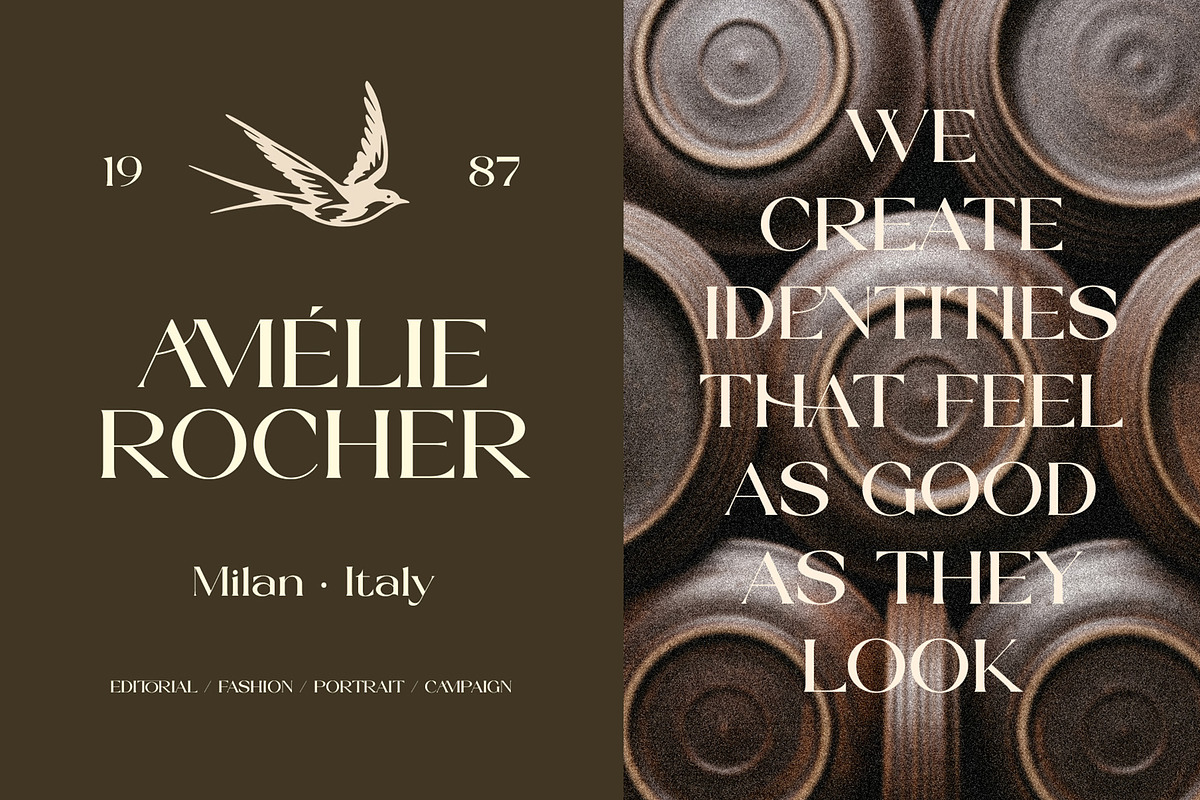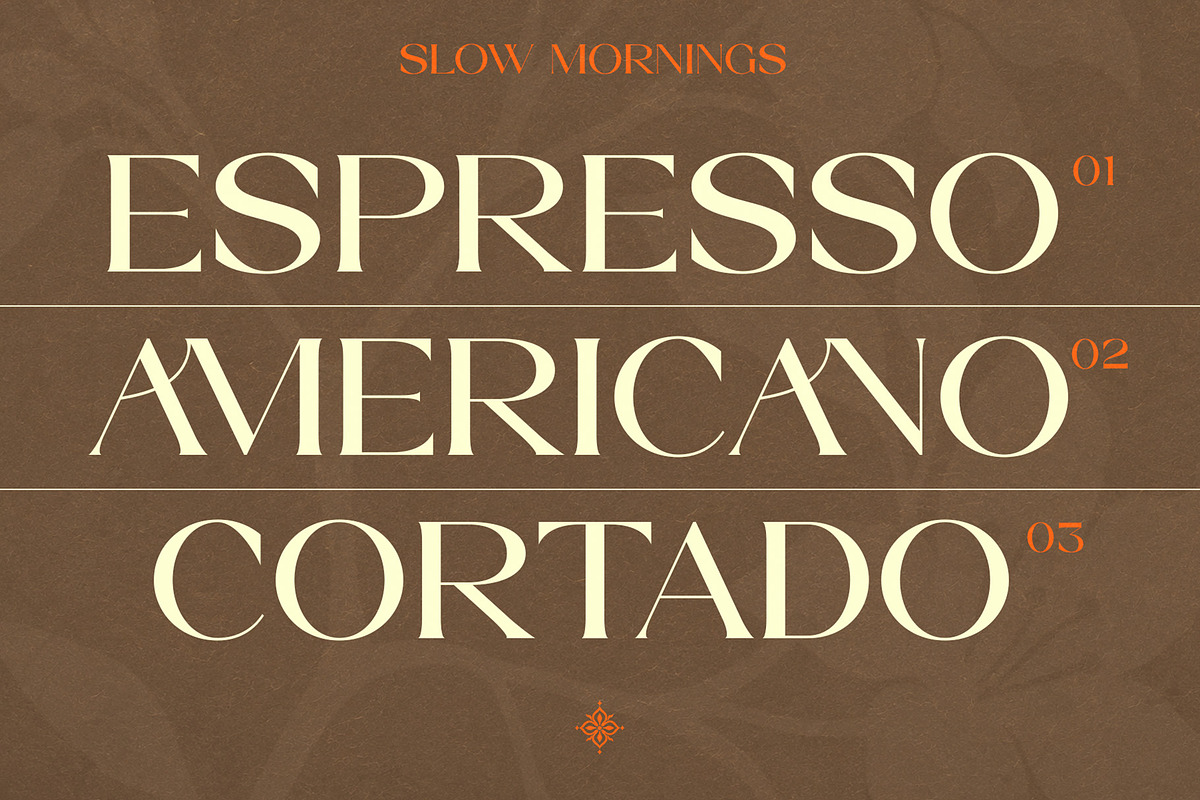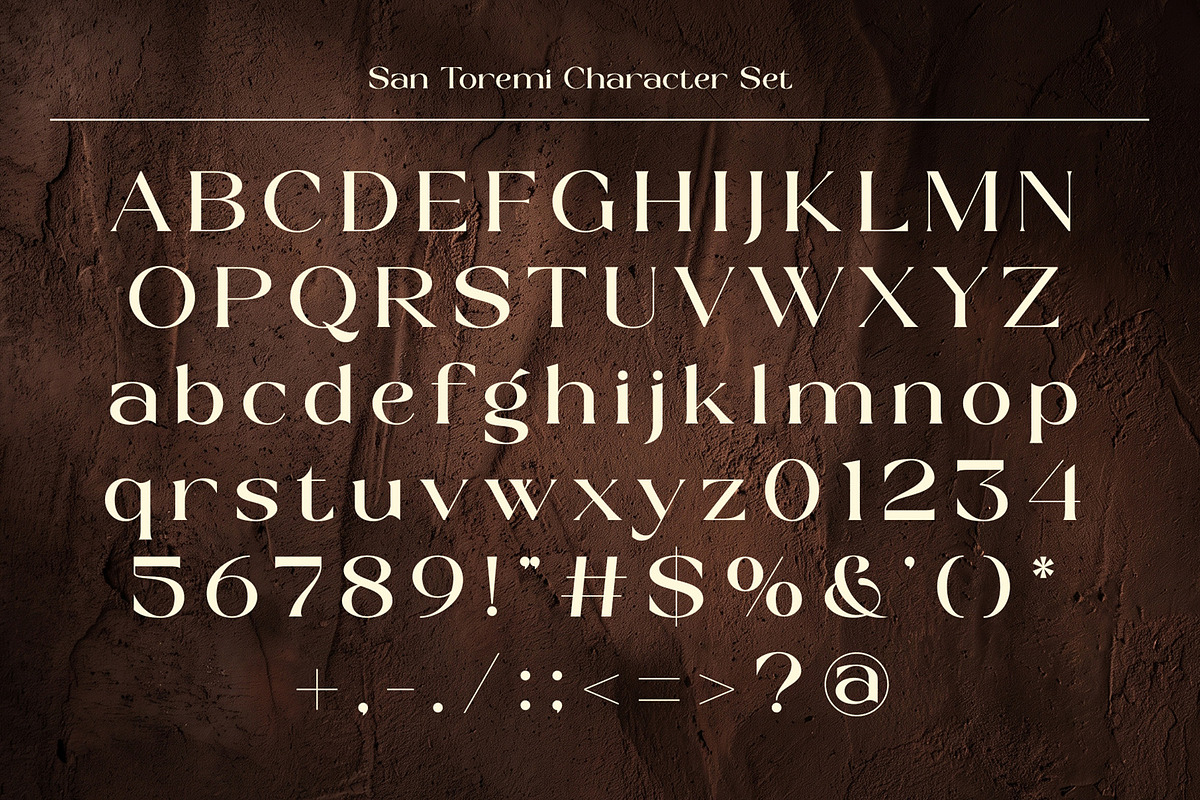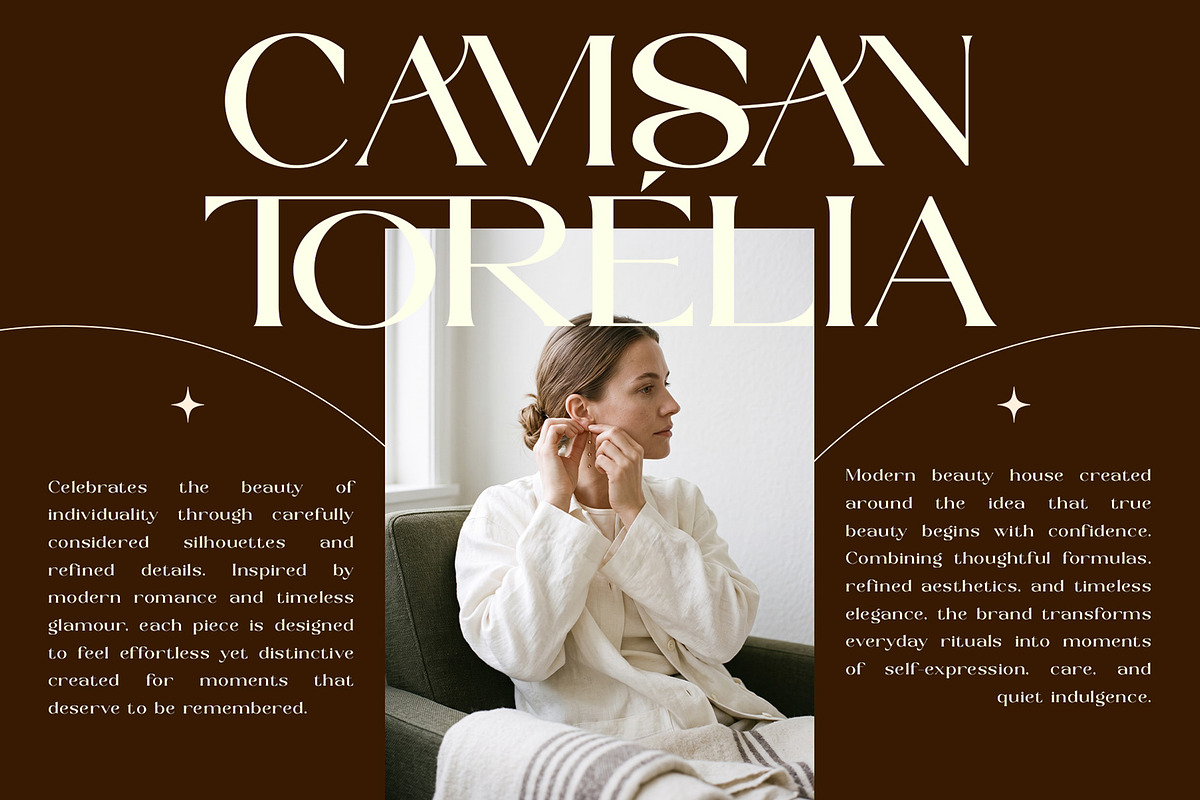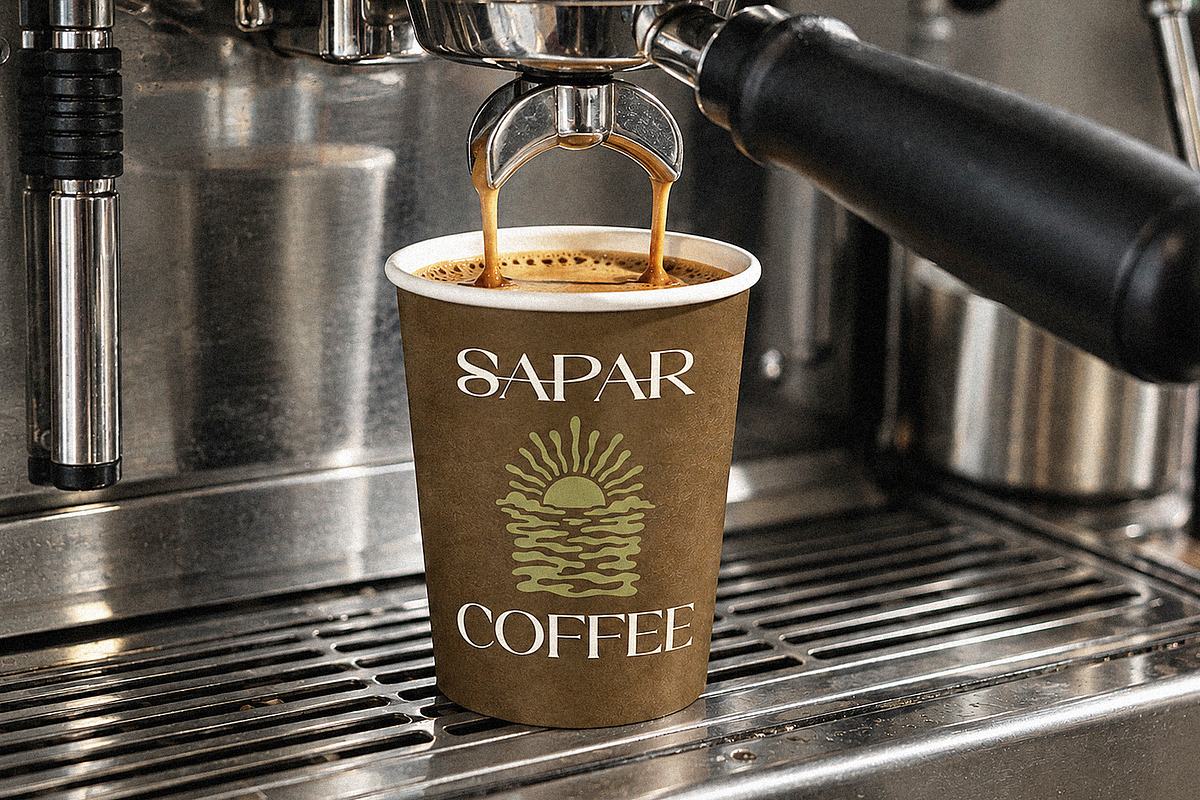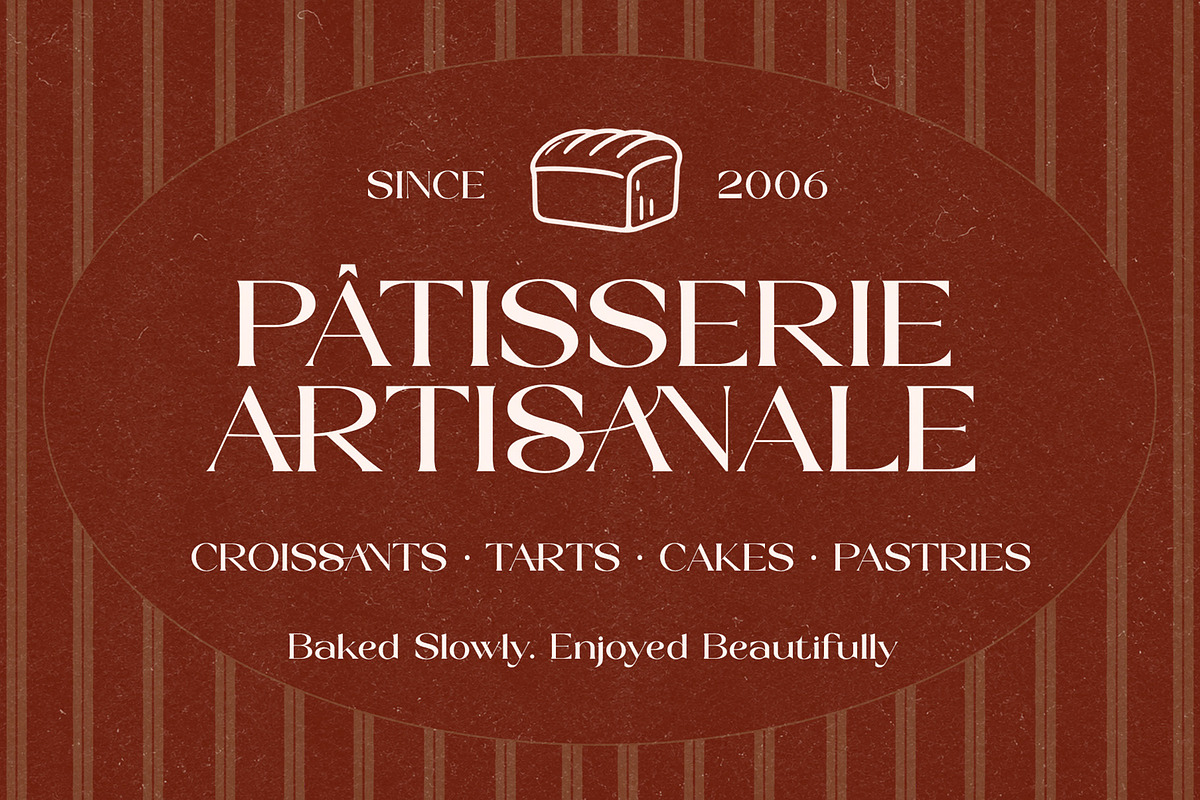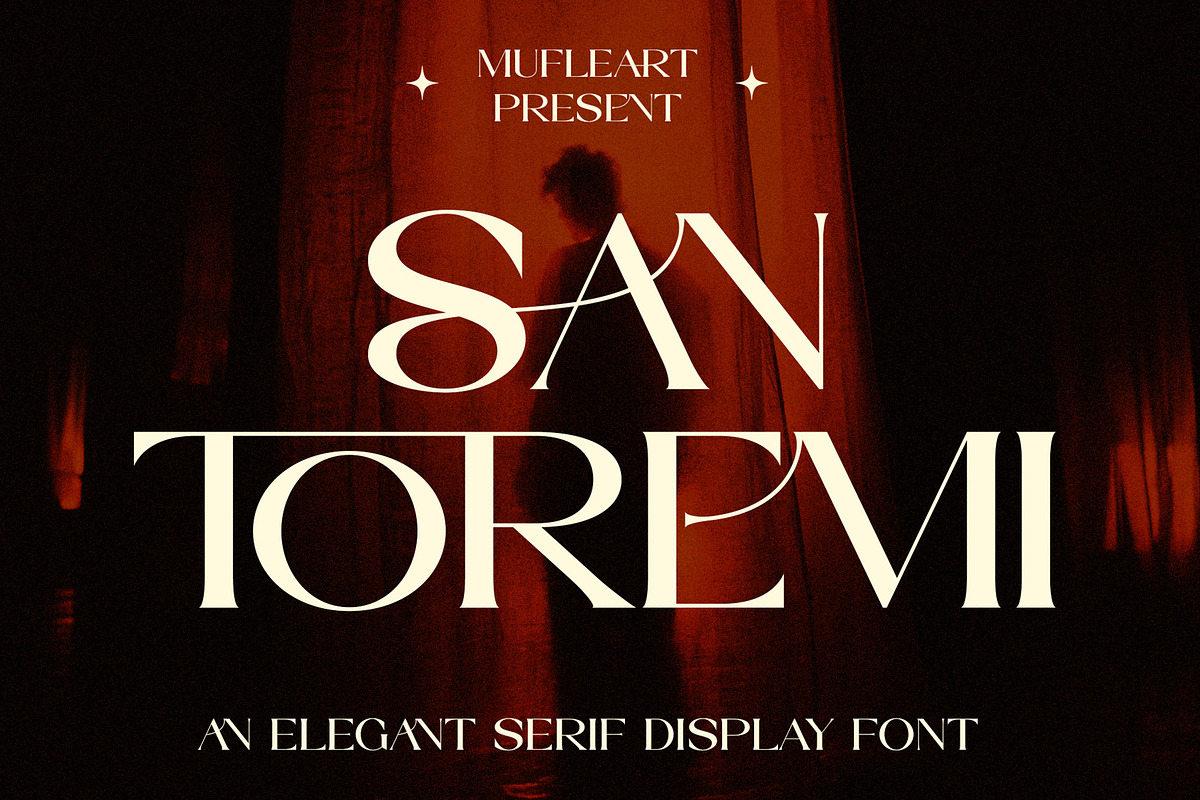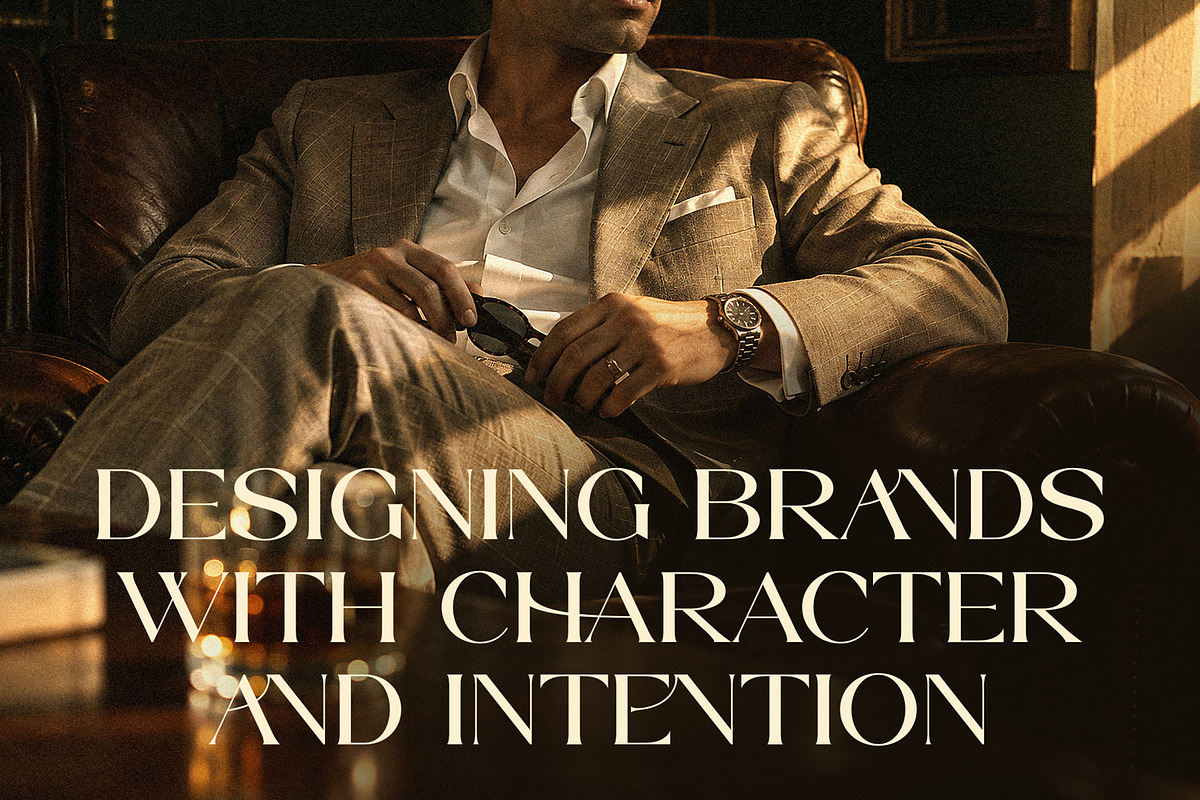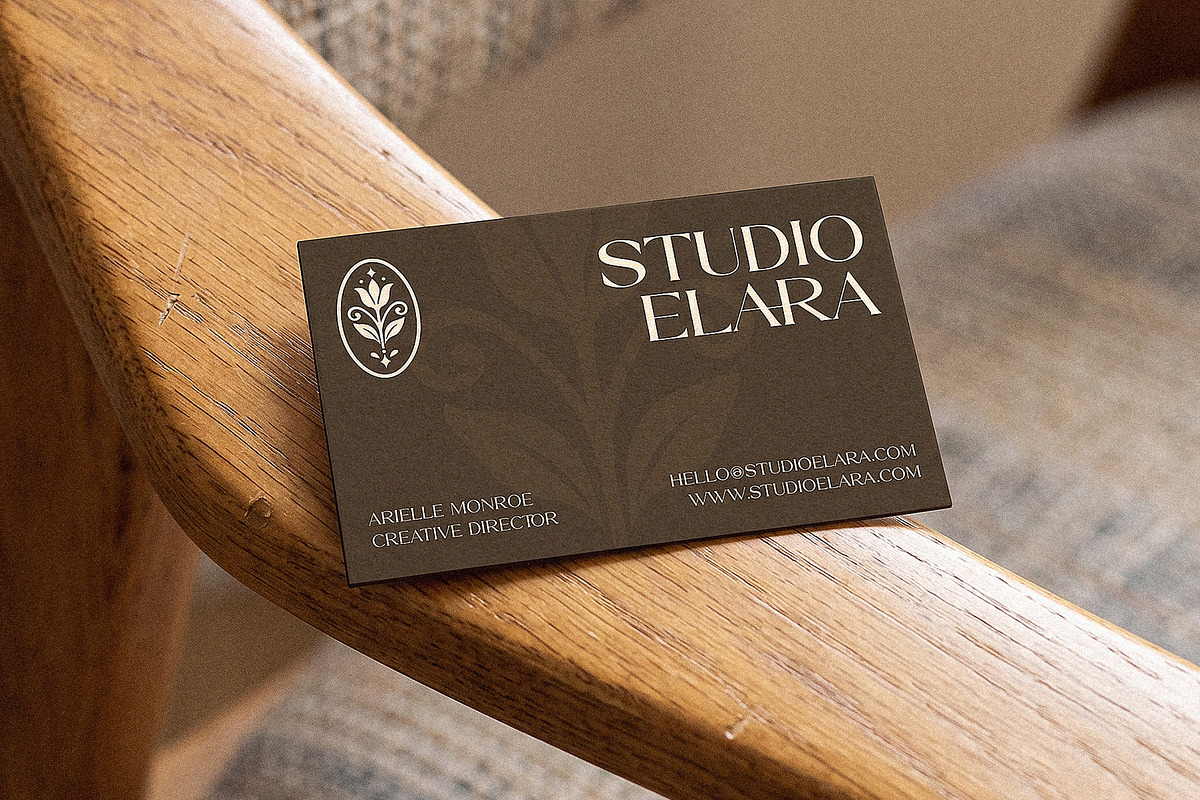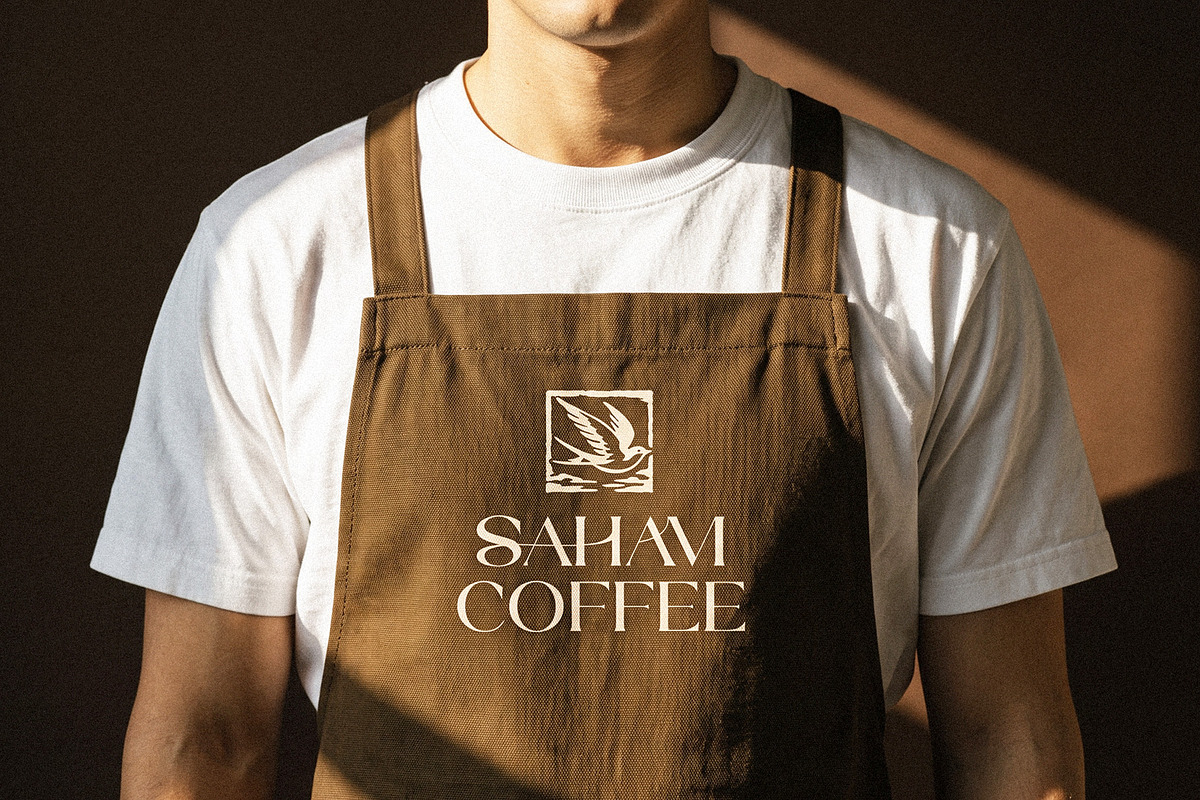
# San Toremi — An Elegant Serif Display Font
San Toremi is a refined and sophisticated serif typeface created for modern brands that value elegance, professionalism, and timeless visual identity.
Featuring beautifully balanced serif forms, graceful proportions, and distinctive ligatures, San Toremi brings a premium and confident character to your designs. Its versatile style makes it an excellent choice for corporate branding, logo design, luxury identities, editorial projects, packaging, advertising, and high-end visual communication.
San Toremi is designed to work beautifully across both minimal and sophisticated aesthetics — from an elegant wordmark to a complete brand identity system.
### KEY FEATURES
✓ Elegant & sophisticated serif design
✓ Professional corporate appearance
✓ Multilingual support
✓ Stylish ligatures
✓ Uppercase & lowercase characters
✓ Numbers & punctuation
✓ Versatile for branding and editorial design
✓ Suitable for digital and print applications
### MULTILINGUAL SUPPORT
San Toremi includes multilingual character support, allowing designers and businesses to use the typeface across international branding and communication projects.
This makes San Toremi a practical choice for global brands, agencies, studios, and businesses targeting international audiences.
### LIGATURES
The included ligatures provide alternative letter combinations that add subtle sophistication and individuality to your typography.
### BUILT FOR BRANDING
San Toremi is especially effective when used for brand names, corporate identities, luxury logos, headlines, and premium marketing materials.
Its sophisticated serif character helps communicate qualities such as:
Trust • Elegance • Authority • Luxury • Professionalism • Timelessness